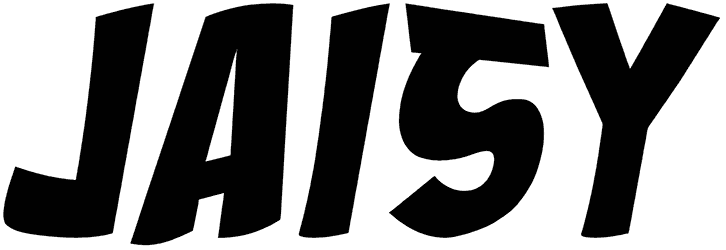
Jaisy Font
All you need to have a cool and eye-catching showcase is to set this urban font on your words. The letters of this comic font are playful and bold, and you can count on them for different projects, like a club flyer. You have all the characters of the Jaisy font, which means it gives you great freedom to use it for any short or long text.